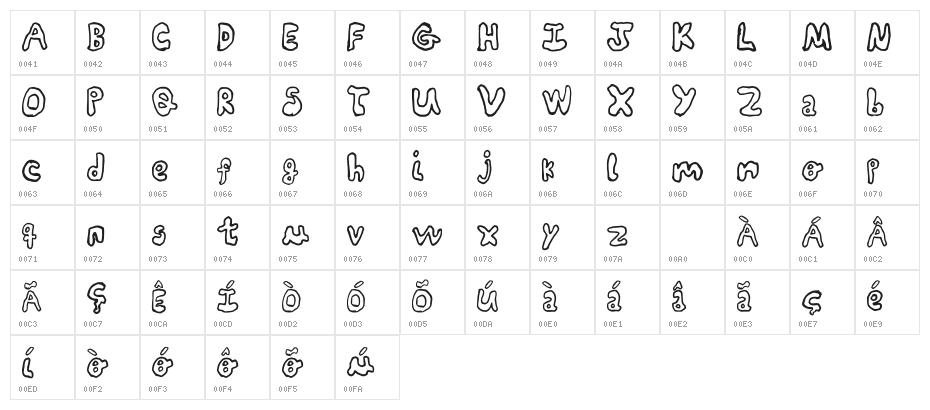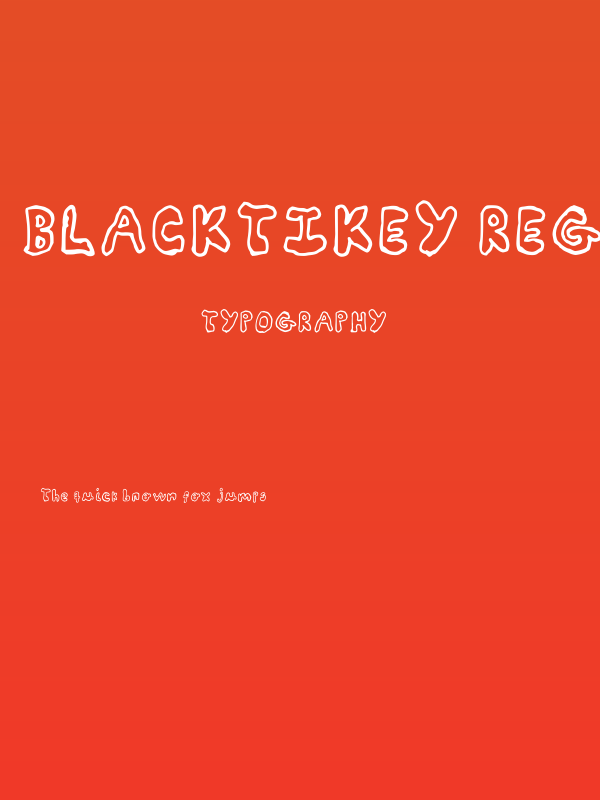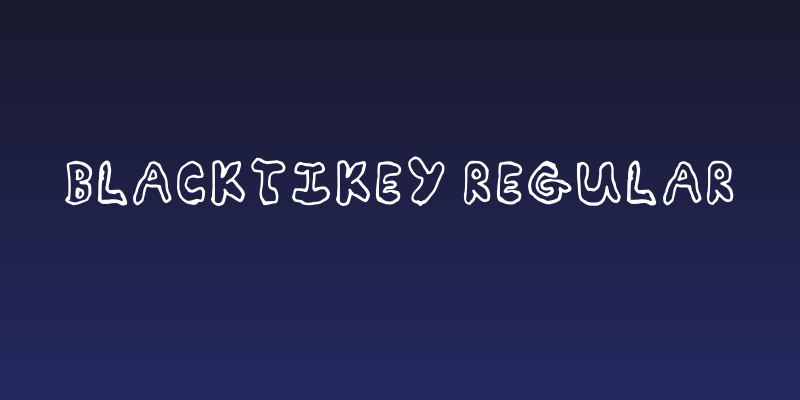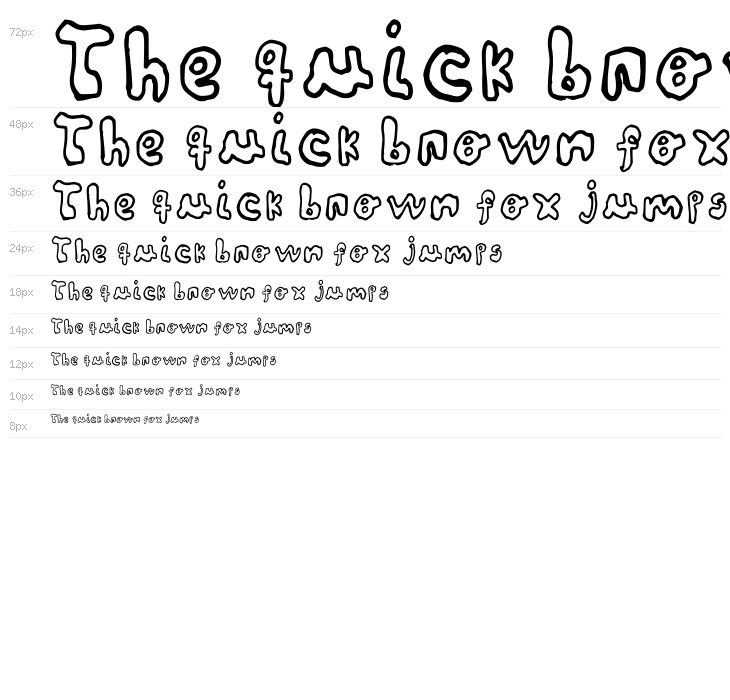
Blacktikey Regular Font
Blacktikey Regular Description
This font features a playful and quirky design with a hand-drawn aesthetic. The characters are outlined with a bold, uneven stroke, giving them a whimsical and informal appearance. The uppercase and lowercase letters maintain a consistent style, with rounded edges and a slightly irregular form that adds to the font's charm. The numbers and special characters follow the same playful theme, making the font suitable for creative and fun projects. Its unique style makes it stand out, perfect for capturing attention in a variety of contexts.